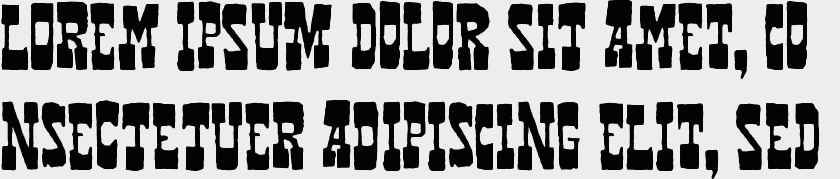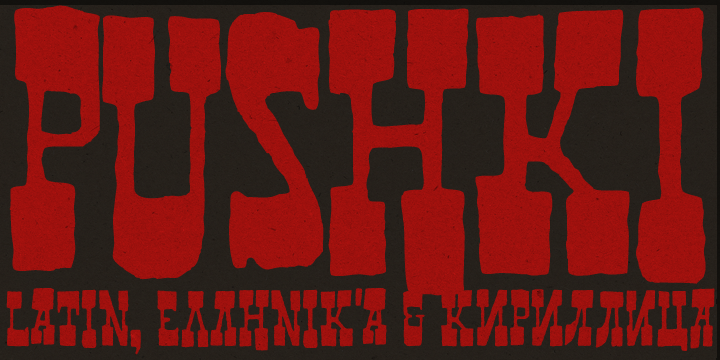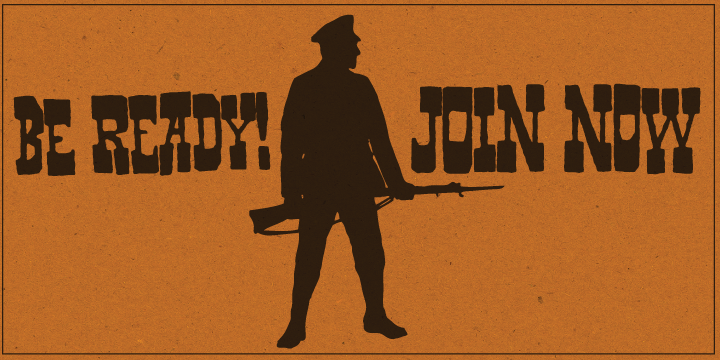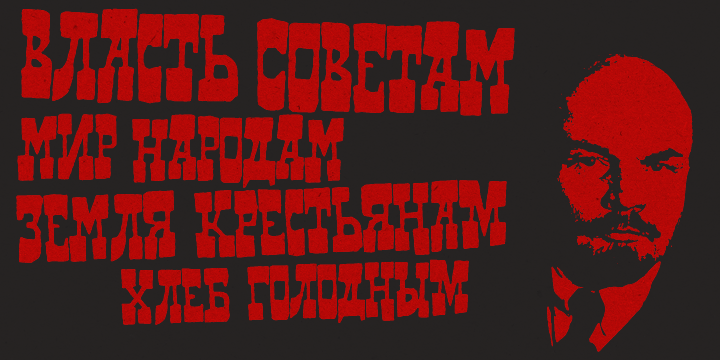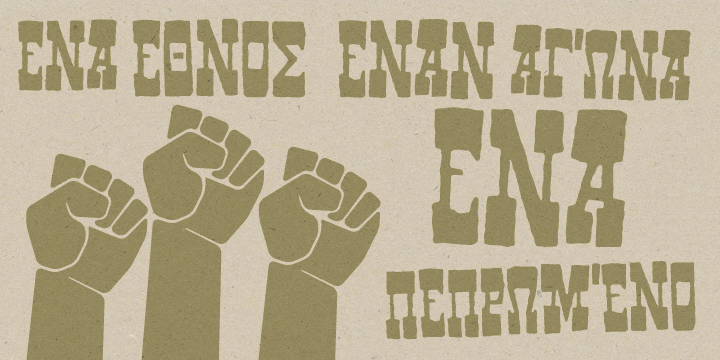
Pushki Pro
Pushki Pro is based on some hand lettering found on a Russian poster. Pushki Pro works with your OpenType-savvy applications, using contextual alternatives, to alternate between the upper and lowercase letters preventing adjacent glyphs from repeating.